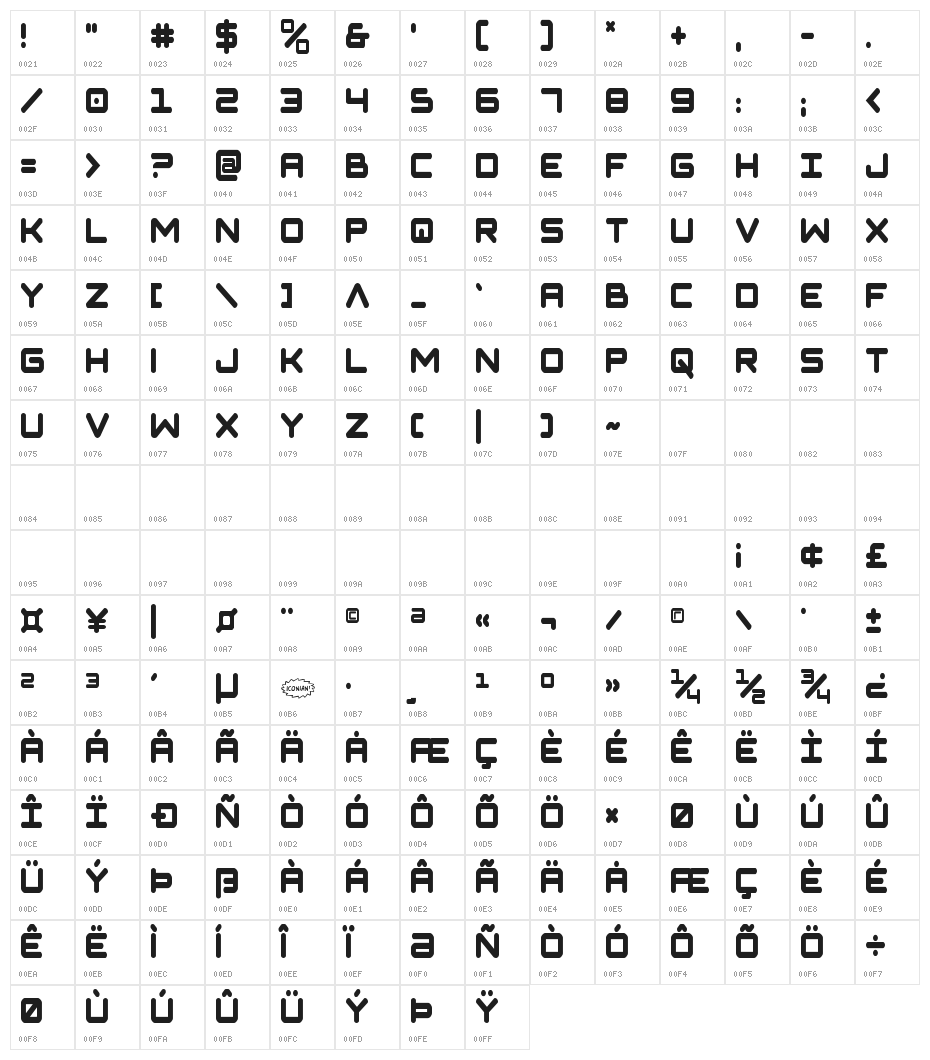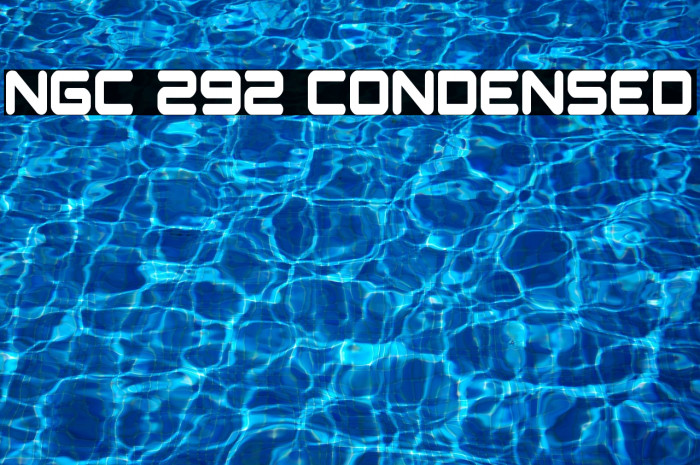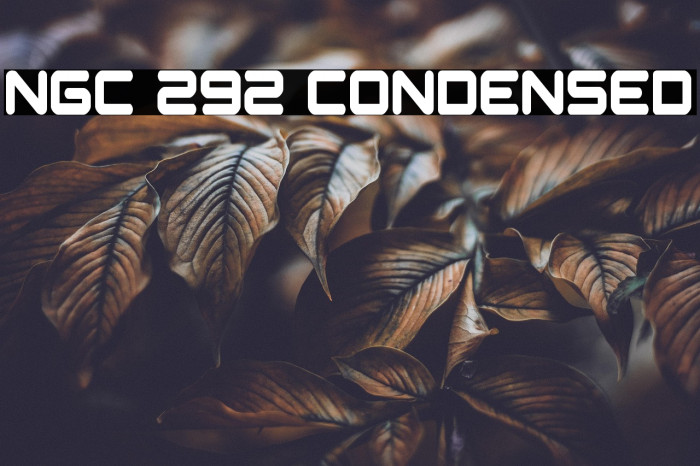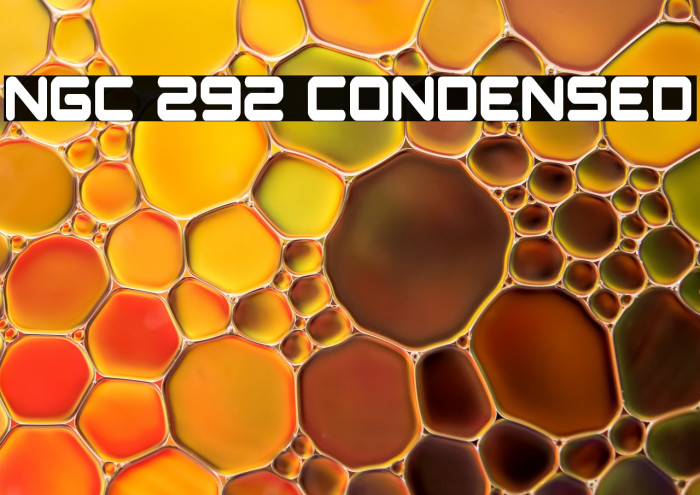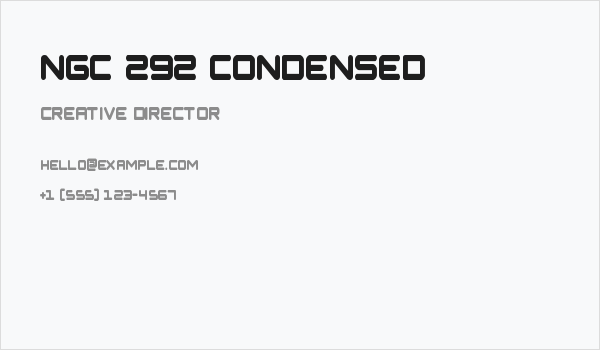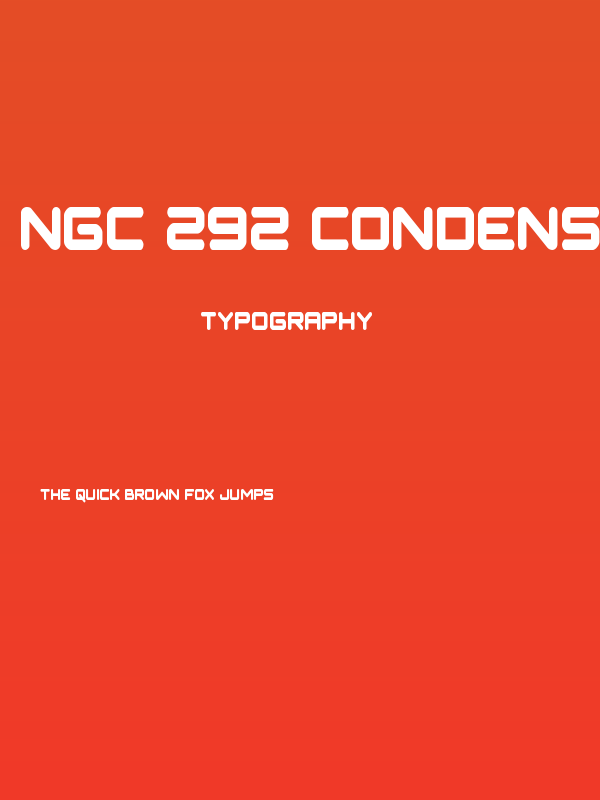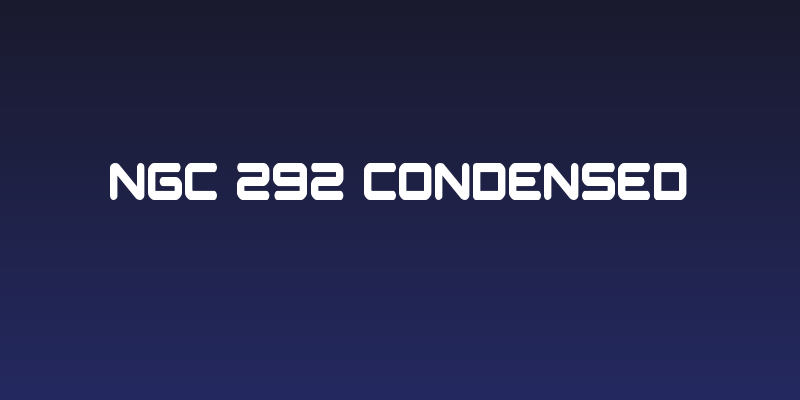
NGC 292 Condensed Font
NGC 292 Condensed Description
This font features a bold, geometric design with rounded edges, giving it a modern and futuristic appearance. The characters are uniformly structured, with consistent stroke thickness and a condensed width, making it ideal for space-saving applications. The uppercase and lowercase letters maintain a cohesive style, while the numerals and special characters are designed to complement the overall aesthetic. Its clean lines and contemporary feel make it suitable for a variety of design projects.
| Use Case | Headlines, Logos, Digital interfaces |
| Proposed Projects | Ideal for technology branding, modern posters, sci-fi themed designs, and digital interfaces. |